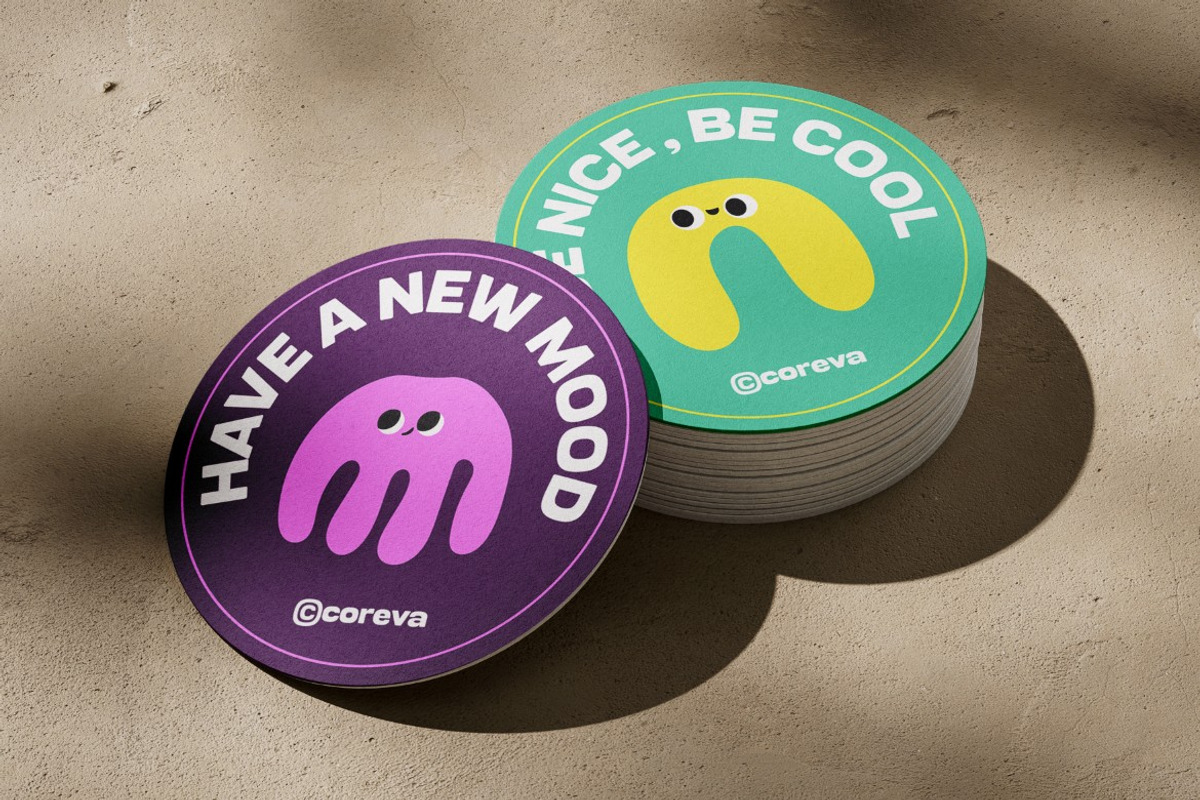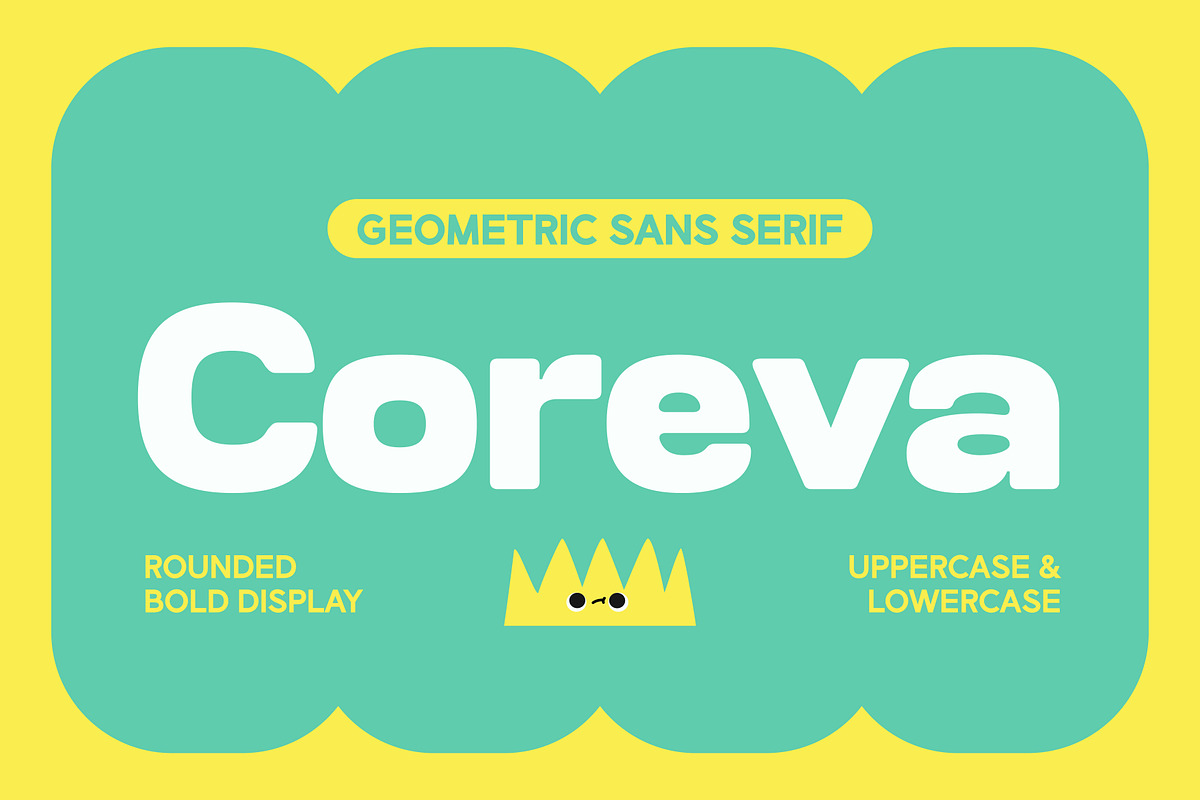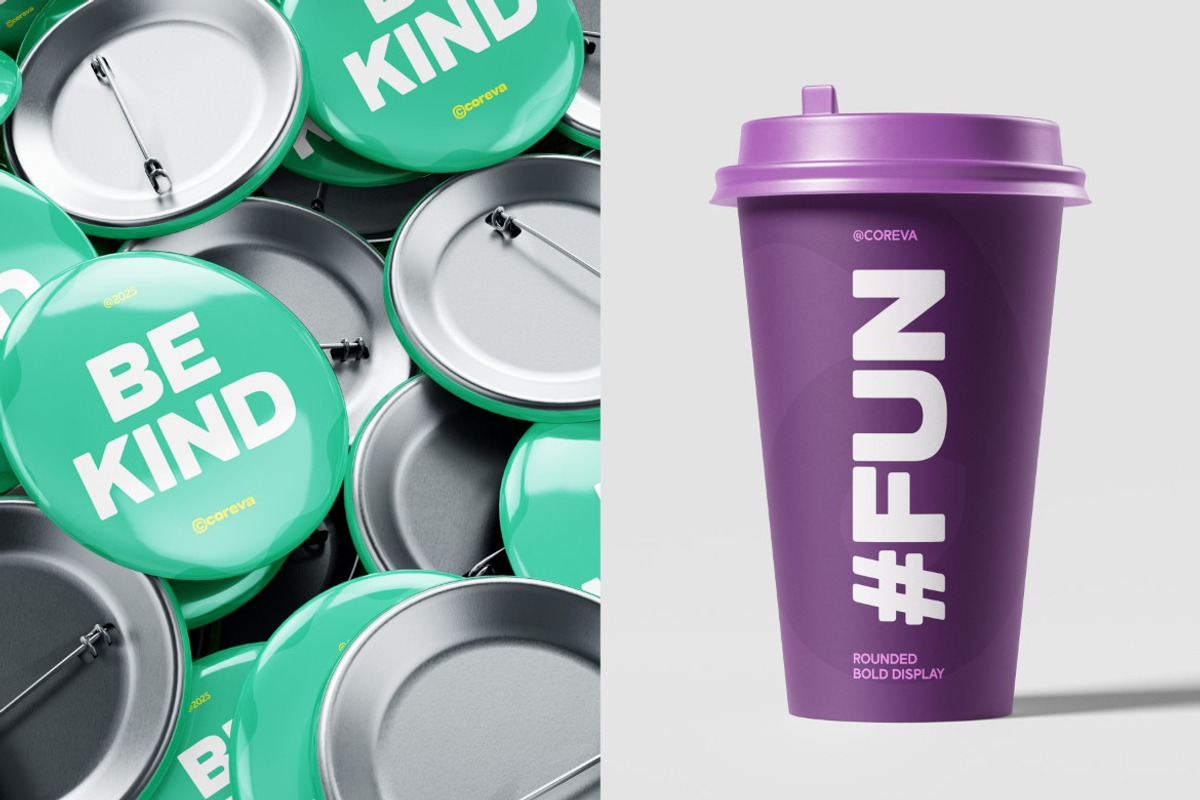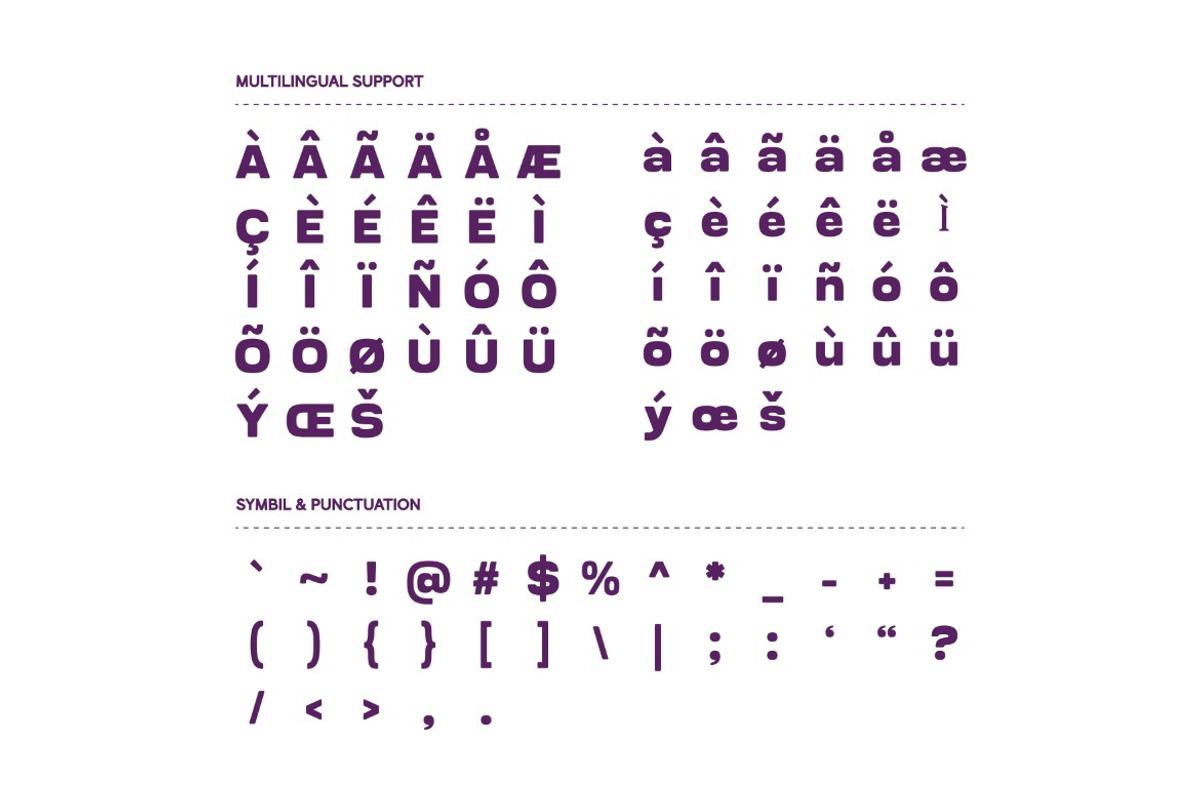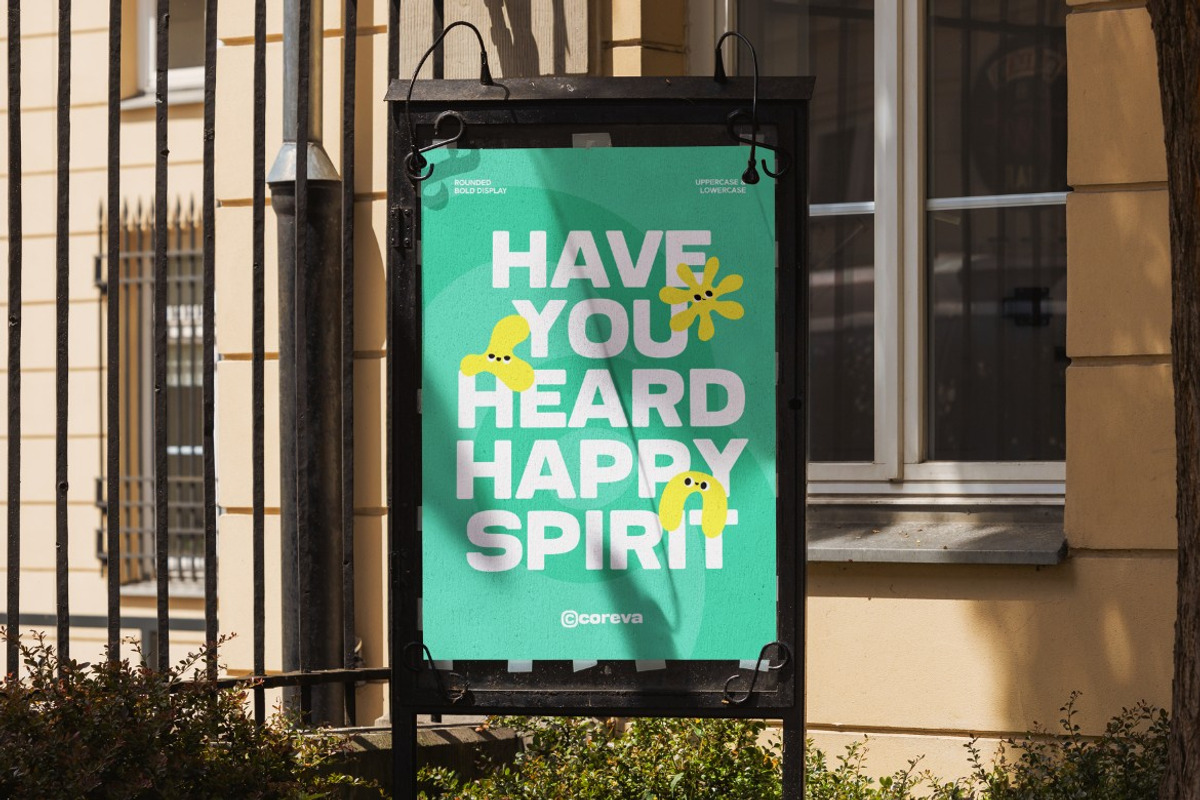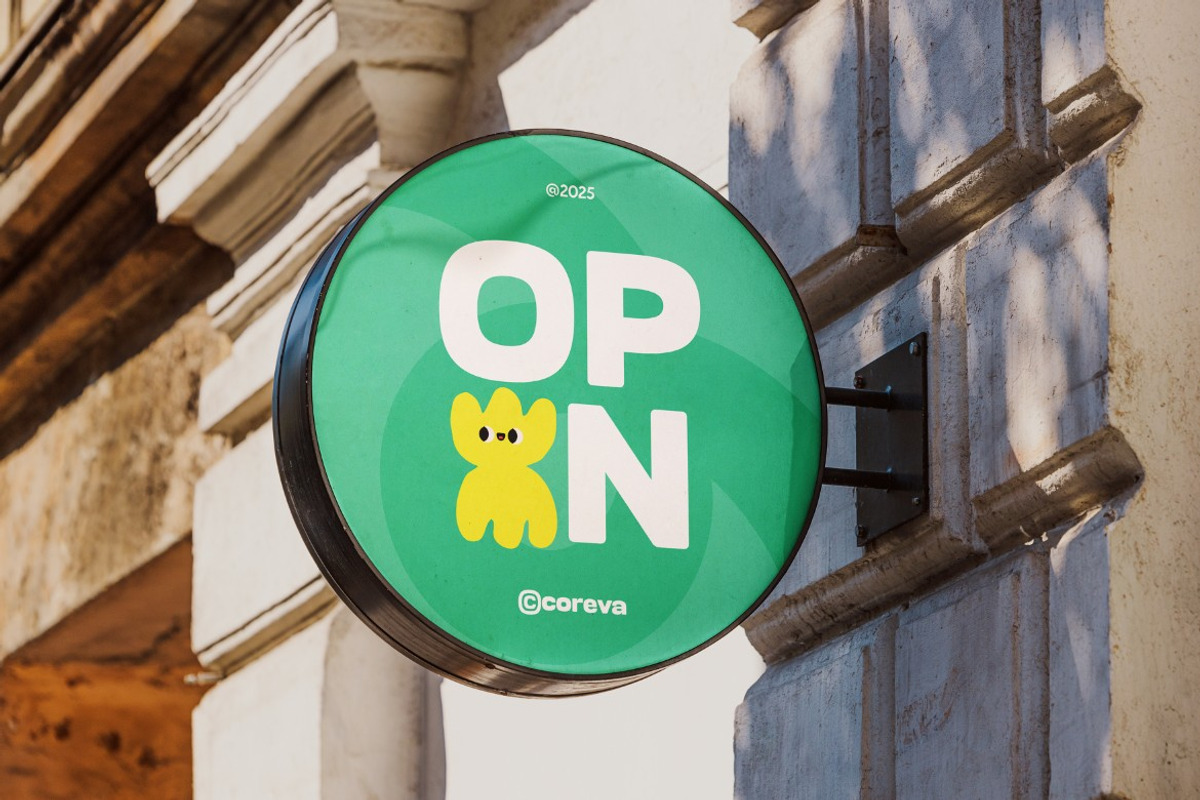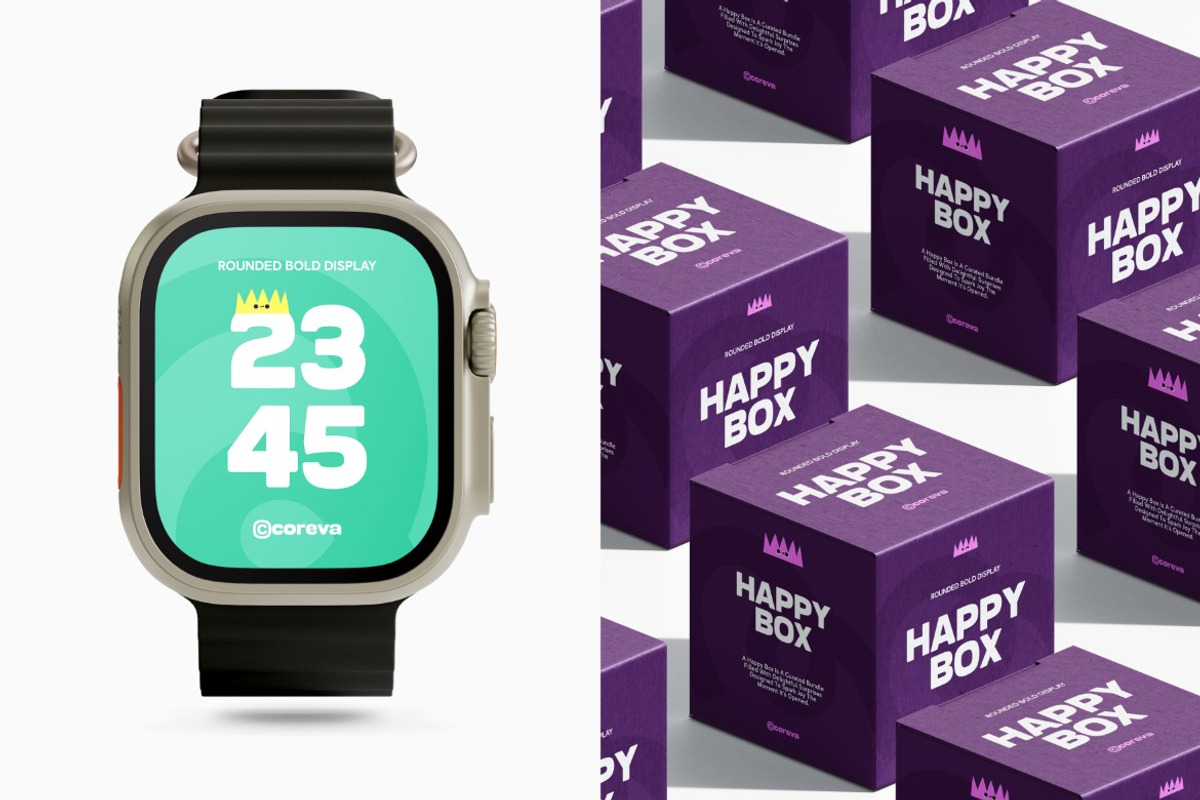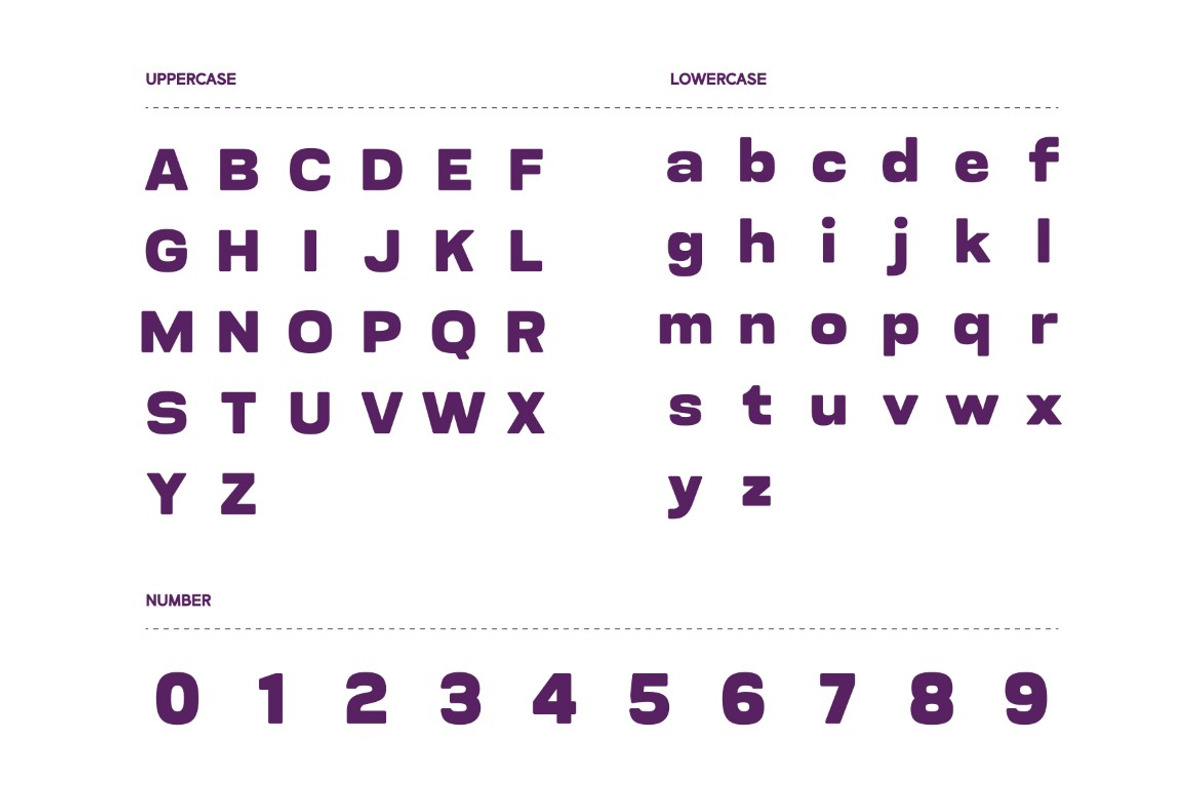
Coreva
Coreva is a bold geometric sans-serif display font with soft rounded edges and a modern, playful look. Designed for branding, children’s themes, packaging, posters, and digital projects, Coreva offers strong readability and a cheerful personality, making it perfect for creators seeking a fun, modern, and engaging typeface.